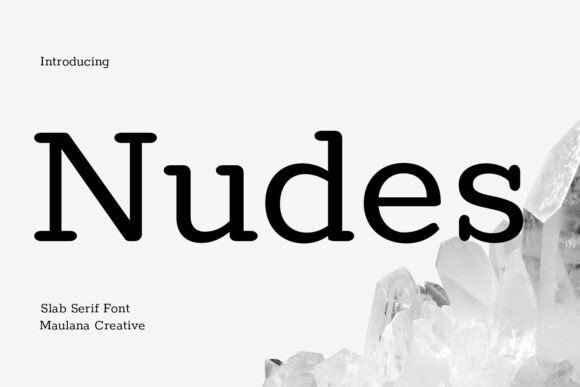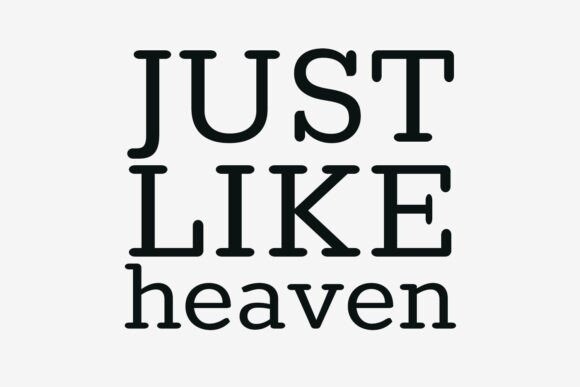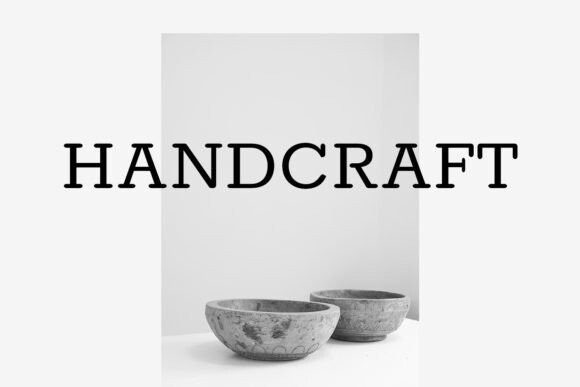
Nudes Font
Nudes Font is a light slab serif font. Light stroke, fun character with a bit of ligatures and alternates. To give you an extra creative work. Nudes font support multilingual more than 100+ language. This font is good for logo design, Social media, Movie Titles, Books Titles, a short text even a long text letter and good for your secondary text font with script or serif. Make a stunning work with Nudes font.